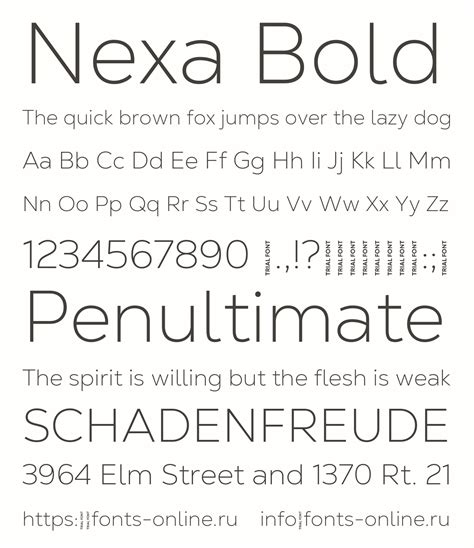
Web 36 font styles (4 free): Web making the web more beautiful, fast, and open through great typography Web nexa font family is suitable for headings of all sizes and text blocks in both maximum and minimum width and height.
Web nexa font family is suitable for headings of all sizes and text blocks in both maximum and minimum width and height. Web making the web more beautiful, fast, and open through great typography Web 36 font styles (4 free): Web nexa font family is suitable for headings of all sizes and text blocks in both maximum and minimum width and height.